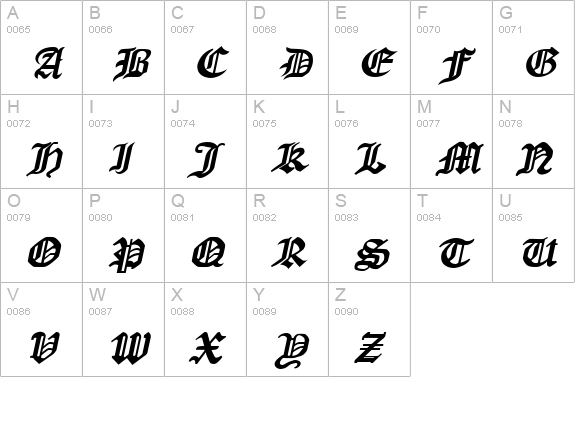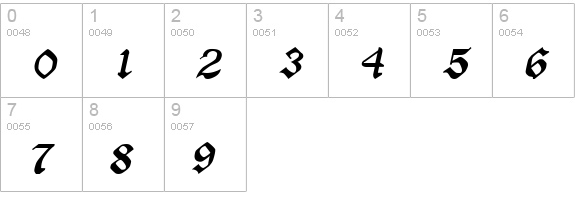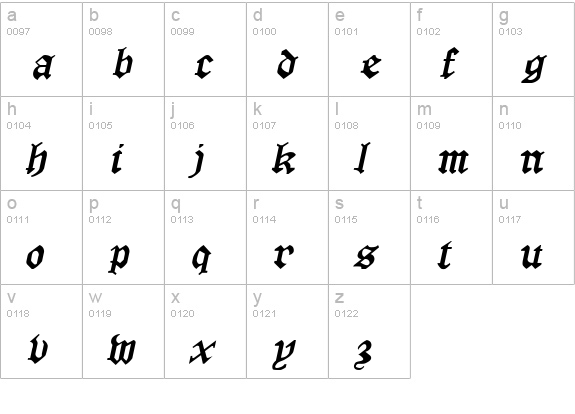
ManuscriptExtended Italic Font Details
ManuscriptExtended Italic is a distinctive, italic variant in the ManuscriptExtended typeface family \xE2\x80\x94 well suited to design and typography projects.
ManuscriptExtended Italic font is a beautifully crafted typeface that exudes elegance and sophistication. Its elongated and slanted letterforms create a sense of fluidity and grace, making it the perfect choice for any project that requires a touch of refined beauty. With its delicate and intricate details, ManuscriptExtended Italic font adds a touch of sophistication to any design. Whether used in headlines, logos, or body text, this font brings a unique and distinctive charm that captures attention and leaves a lasting impression. One of the most remarkable features of ManuscriptExtended Italic font is its versatility. Its elegant curves and flowing strokes make it suitable for a wide range of applications, from wedding invitations and event posters to branding and packaging designs. No matter the project, this font effortlessly adds a touch of sophistication and allure. What makes ManuscriptExtended Italic font even more appealing is that it is freely available to download at FontsMarket.com. This means that designers and enthusiasts alike can access this stunning typeface without any cost. Its availability as a free font allows for endless creative possibilities, making it a valuable asset for any designer's toolkit. In conclusion, ManuscriptExtended Italic font is a captivating and versatile typeface that effortlessly combines elegance and sophistication. Its freely available download at FontsMarket.com makes it an excellent choice for designers looking to add a touch of refined beauty to their projects. Whether used in print or digital designs, this font is sure to leave a lasting impression.